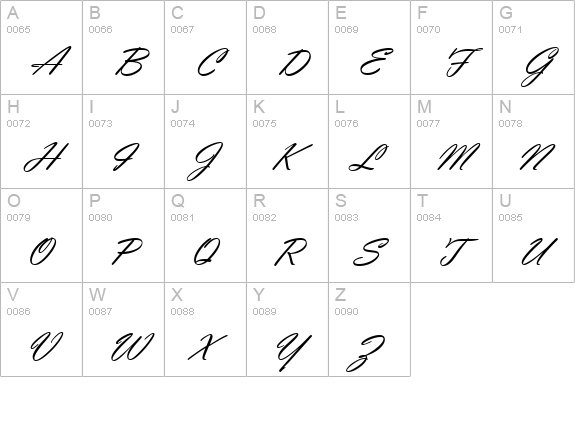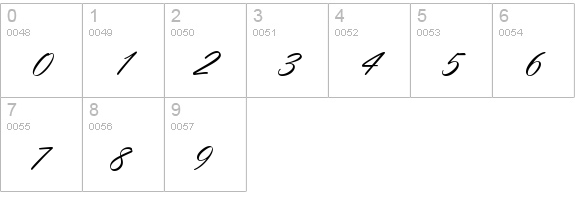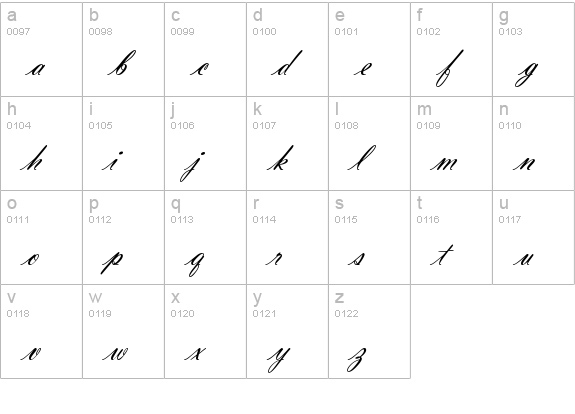
Vladimir Script is a stunningly beautiful font that exudes elegance and sophistication. Its graceful and flowing letterforms make it perfect for adding a touch of class to any project. With its delicate curves and intricate details, Vladimir Script captures the essence of traditional calligraphy, while still maintaining a modern and refined look. This font is not only visually pleasing, but it also offers versatility in its usage. Whether you're designing wedding invitations, creating a logo for a high-end brand, or simply adding a touch of elegance to your personal correspondence, Vladimir Script is sure to impress. And the best part? Vladimir Script is available for free! You can easily download this font at FontsMarket.com, a reliable source for high-quality fonts. By offering this font for free, the creators of Vladimir Script have made it accessible to everyone, regardless of budget or resources. So why wait? Enhance your designs with the timeless beauty of Vladimir Script today. Download it for free at FontsMarket.com and experience the magic of this exquisite font.